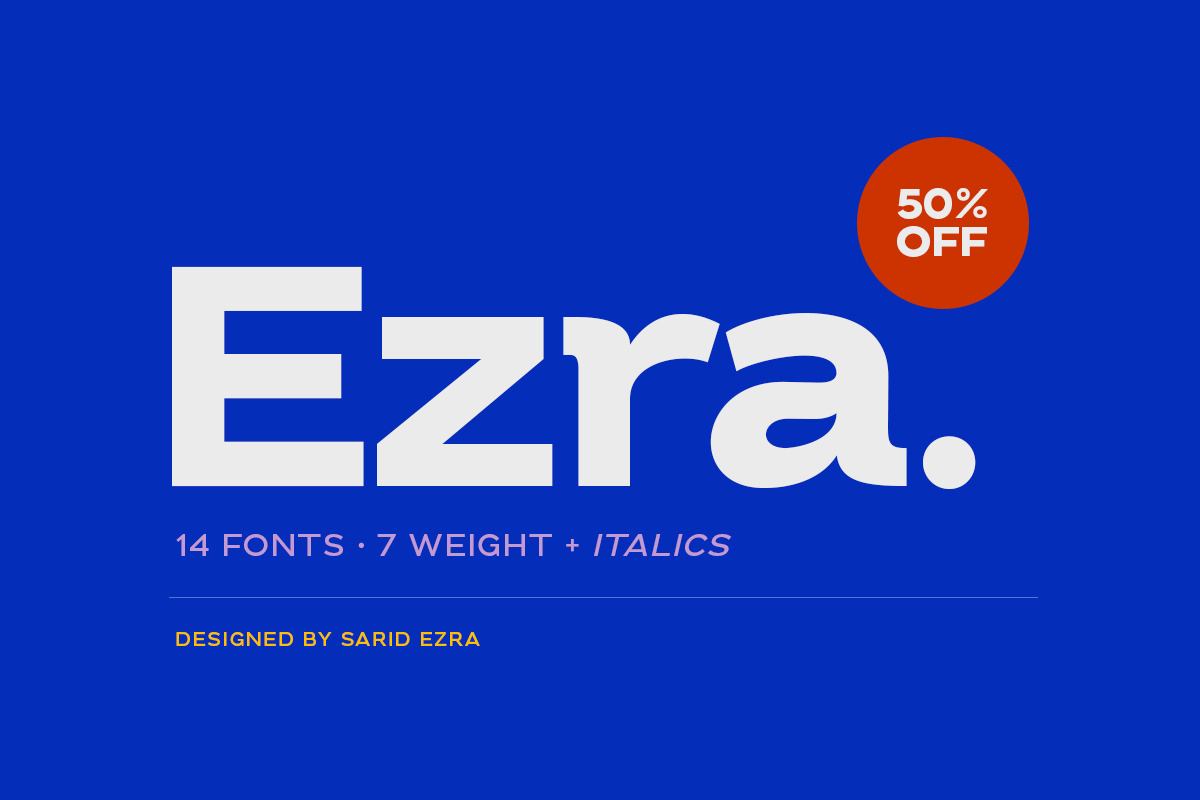
The Ezra - Modern Sans Font Free Download is a sleek and contemporary sans-serif typeface that brings clarity and style to any project. Perfect for creating logos, websites, branding, social media graphics, and print materials, this font offers a clean and professional look. Please note, for commercial use, a license must be purchased. You can download it for free for testing purposes.
With its geometric design and balanced proportions, the Ezra - Modern Sans Font Free Download is ideal for projects that require a modern, minimalist feel. Whether you're designing for a corporate brand, a tech startup, or any creative digital project, this font ensures your designs have a polished and contemporary edge.